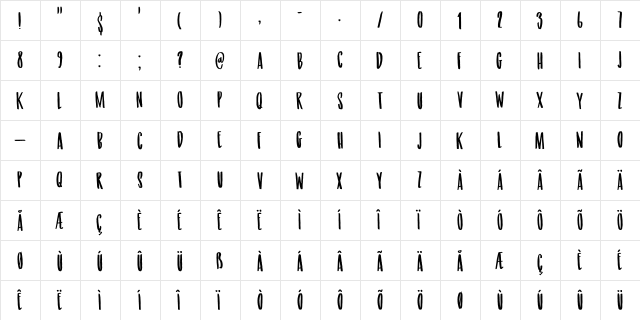
Getaway Car DEMO Regular Font Preview
Getaway Car DEMO Regular
Getaway Car DEMO Regular Font Details
Design Context for Getaway Car DEMO Typeface
Getaway Car DEMO is a composed and adaptable typeface that performs quietly and consistently across a wide range of design contexts.